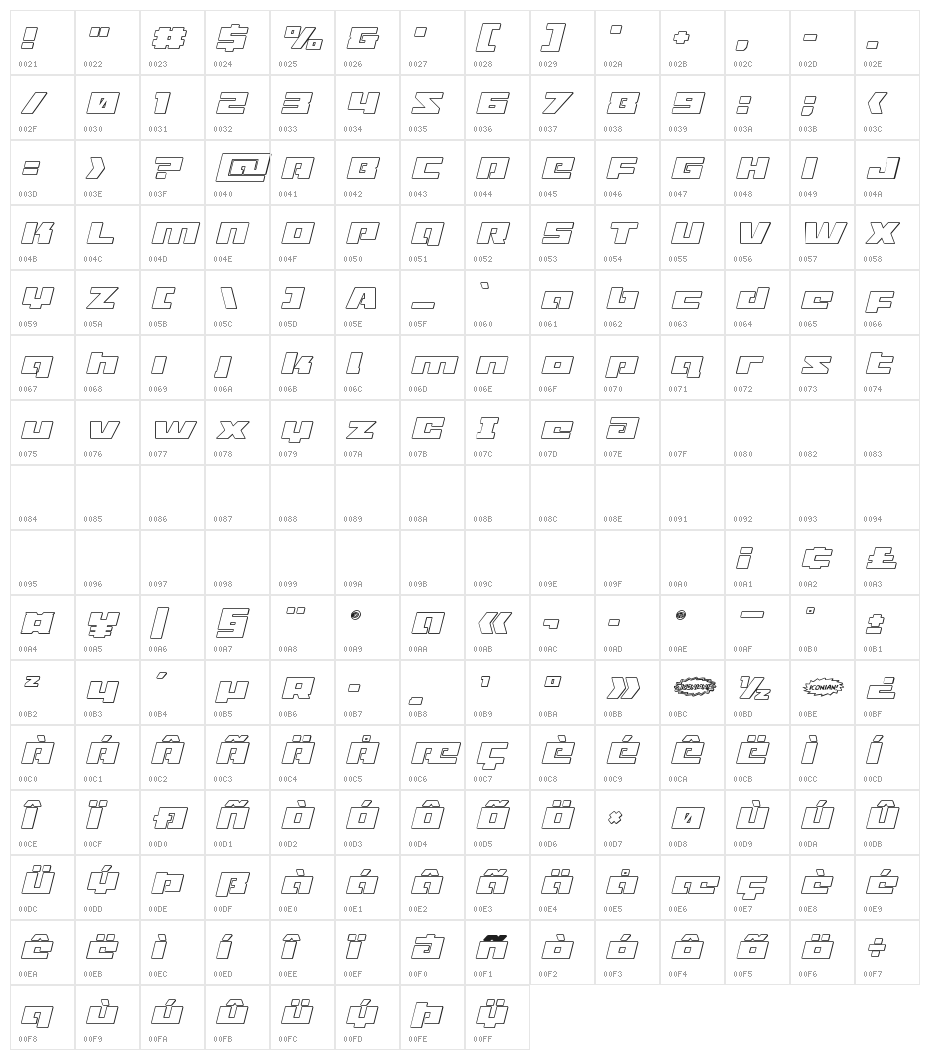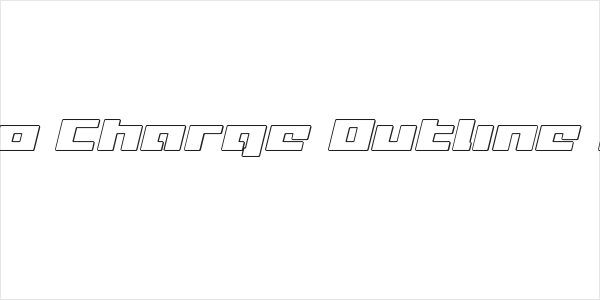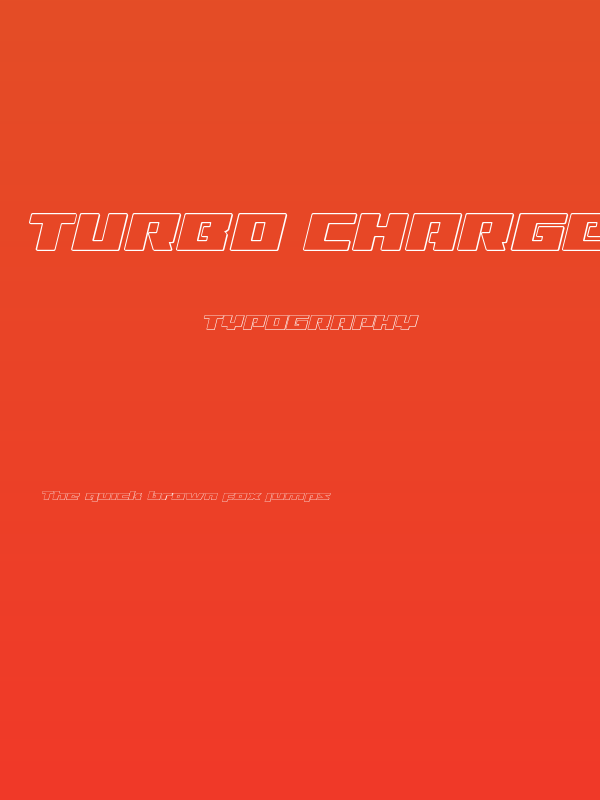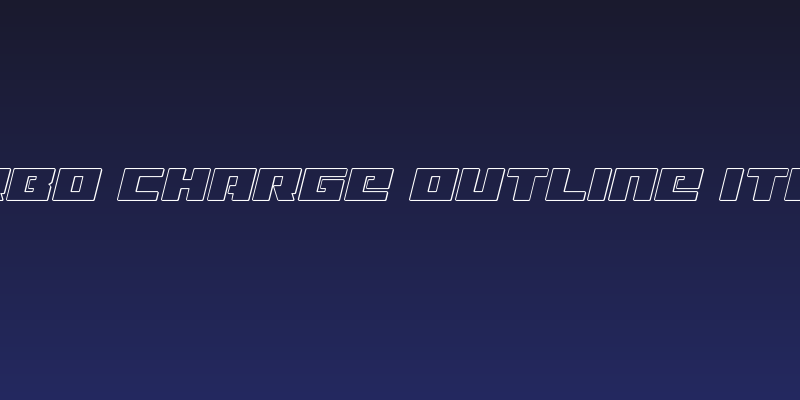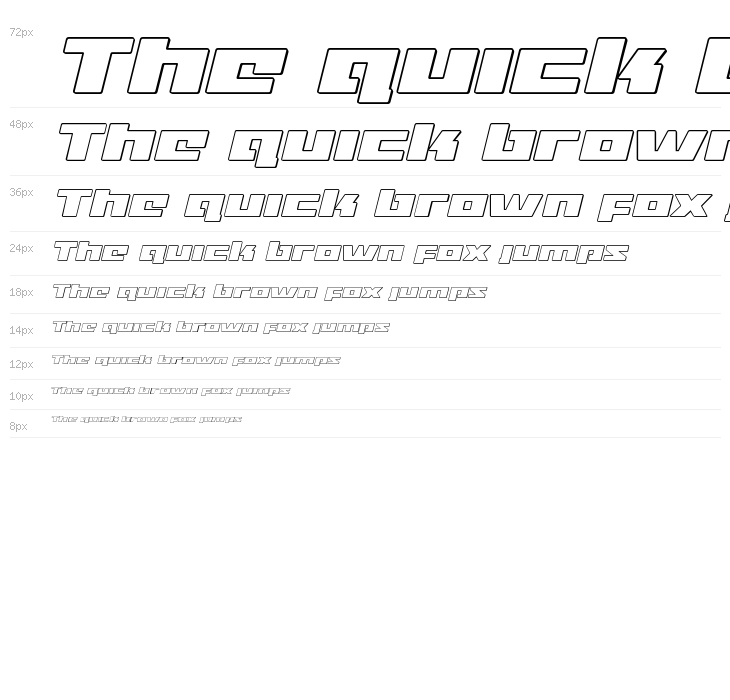
Turbo Charge Outline Italic Font
Turbo Charge Outline Italic Description
This font features a bold, geometric outline style with a futuristic and dynamic appearance. The characters are italicized, giving them a sense of motion and speed. Each letter is constructed with sharp angles and clean lines, creating a modern and edgy look. The outline design adds a layer of depth, making the characters stand out prominently. This font is well-suited for projects that require a strong visual impact, such as sports branding, automotive designs, or tech-related themes. The uppercase and lowercase letters maintain a consistent style, and the numerals and special characters are designed to match the overall aesthetic.
| Proposed Projects | Ideal for sports branding, automotive designs, tech-related themes, and dynamic headlines. |